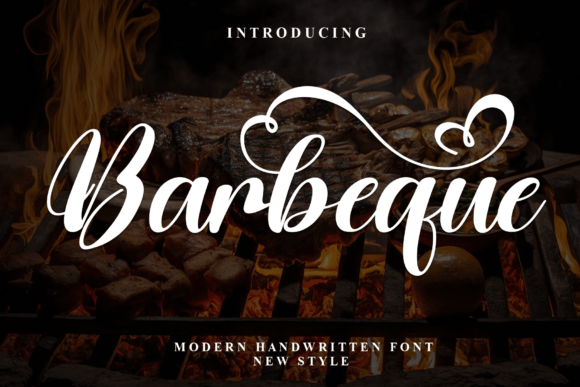
Discover the Sizzle of Barbeque Font
Have you ever been brainstorming a design project and suddenly, the perfect font pops into your mind? For designers, that moment is pure magic. It’s the spark that sets the entire creative process ablaze. For us, it was the moment we stumbled upon the enchanting Barbeque Font, a stylish script font that exudes elegance and contemporary charm.
With its beautiful combination of fluid curves and carefully crafted letterforms, the Barbeque Font brings a touch of sophistication to any design. Whether you’re working on a logo, invitation, packaging, or social media graphics, this versatile font is sure to elevate your work to the next level. Its natural flow and polished details make it a valuable asset for designers, adding a refined and polished finish to any project.
Key Features of Barbeque Font
- Unique Characteristics: Barbeque Font features a bold, playful, and energetic design, making it perfect for creating attention-grabbing headlines and titles.
- Font Style: Barbeque Font is available in three different styles: Regular, Italic, and Bold, providing users with flexibility and versatility in their design choices.
Designer Review: Barbeque Font
Overall, I was pleasantly surprised by the Barbeque Font and its unique charm. Here are some of the things that caught my attention:
- ✨ The font’s playful, handwritten feel is perfect for casual, summery designs – think beach parties, outdoor events, or food-related branding.
- ✨ The font’s ligatures and flourishes add a touch of whimsy, making it ideal for creative projects where you want to convey a carefree vibe.
- ✨ The font’s wide range of weights and styles offers flexibility, allowing you to adjust the look to suit your design needs.
- ⚠️ The font may not be suitable for formal or corporate designs, as its casual nature might detract from a professional tone.
- ⚠️ The font’s irregularities can sometimes make it difficult to read, particularly at smaller font sizes.
In conclusion, the Barbeque Font is a great choice for designers looking to add some personality to their projects. While it may not be the best fit for every design, its unique charm and flexibility make it a valuable addition to any font library.
Use “Barbeque Font” for creative and playful designs, such as:
– Food and beverage branding
– Summer-themed invitations and party decorations
– Casual and informal writing
Alternatives to “Barbeque Font” for Designers
Raleway
Raleway is a sans-serif font with a modern and elegant feel. It is ideal for use in corporate identities, digital products, and websites that require a clean and sophisticated look. Raleway is more versatile than Barbeque Font, offering a wide range of weights and styles to suit various design needs.
Comparison: Raleway is more polished and refined compared to Barbeque Font, which has a more casual and playful vibe. Raleway is suitable for a broader range of applications, making it a better choice for designers who want a reliable and professional font.
Lato is a sans-serif font that is highly legible and versatile. It is suitable for use in digital products, websites, and corporate identities that require a clean and modern look. Lato is more condensed than Barbeque Font, making it ideal for use in small spaces or for creating a sense of visual hierarchy.
Comparison: Lato is more condensed and modern compared to Barbeque Font, which has a more relaxed and casual feel. Lato is a better choice for designers who want a font that is highly legible and versatile, but may not be suitable for use in applications where a more playful tone is required.
Yes, the Barbeque Font is optimized for digital use, including web, mobile, and desktop applications. It’s designed to be clear and legible at various resolutions and screen sizes, ensuring a consistent user experience across different devices.